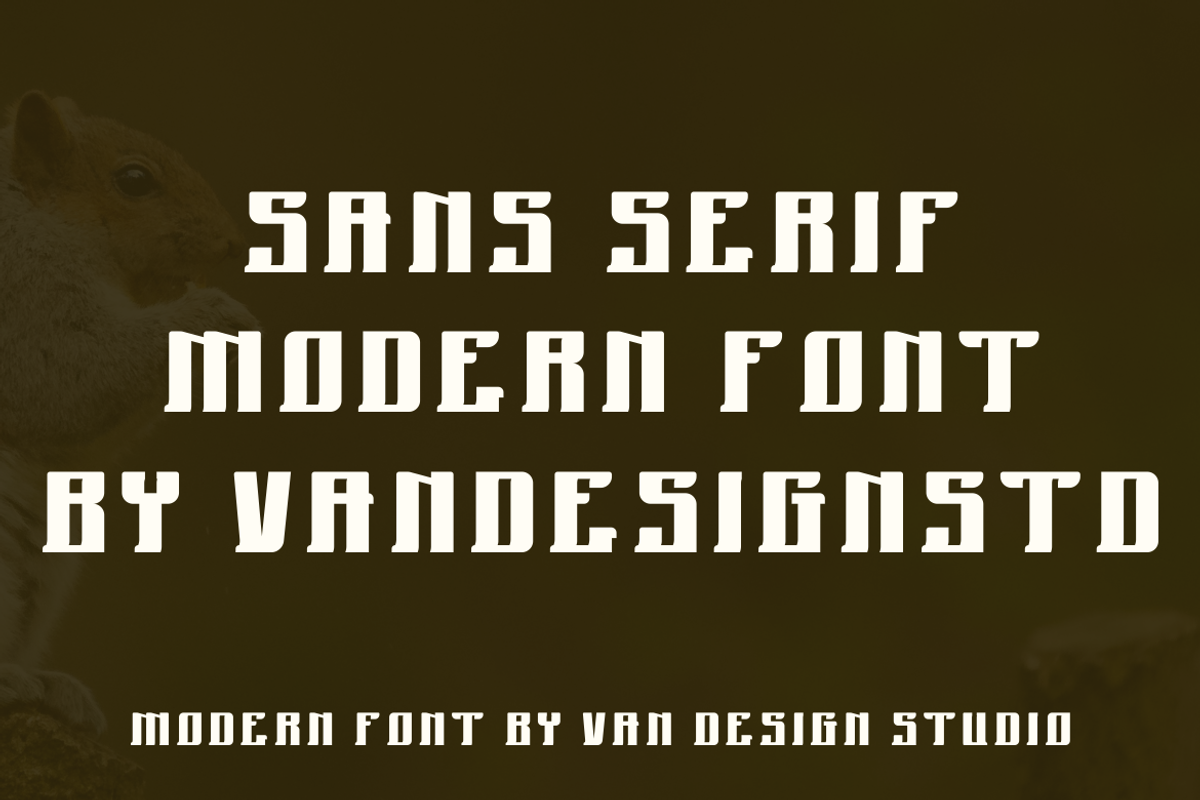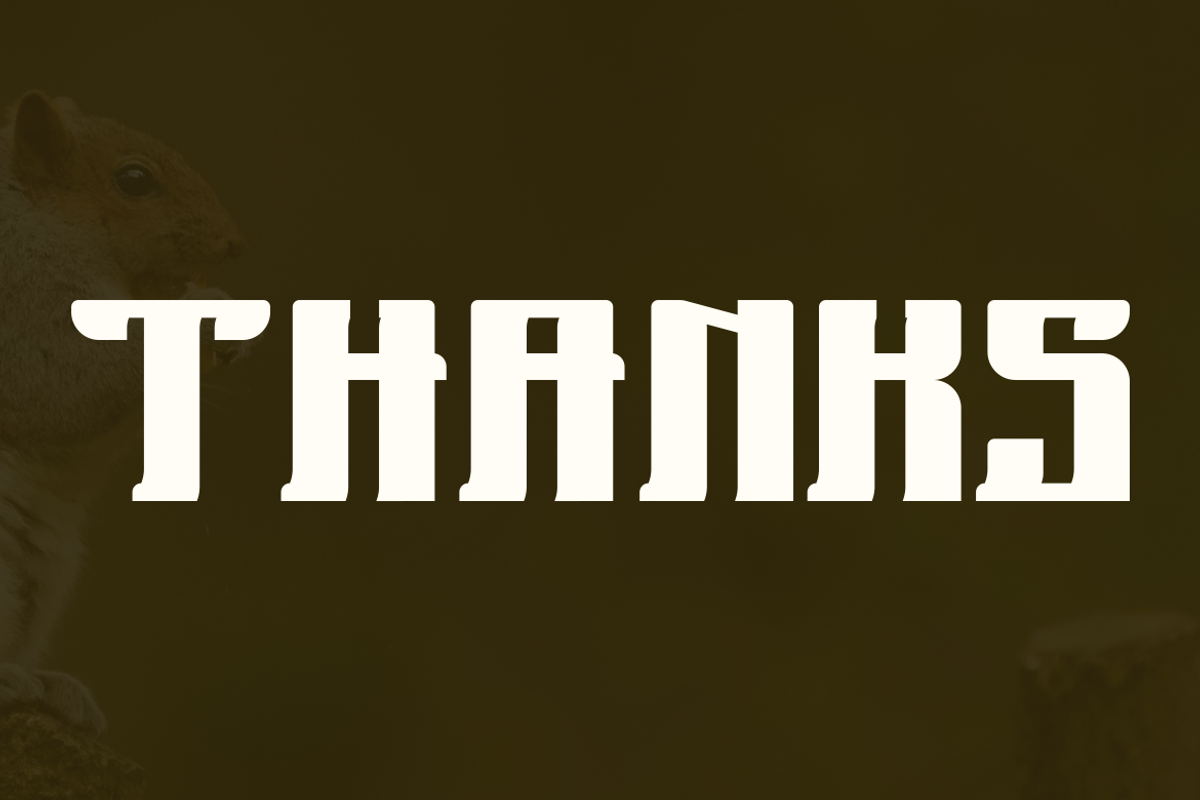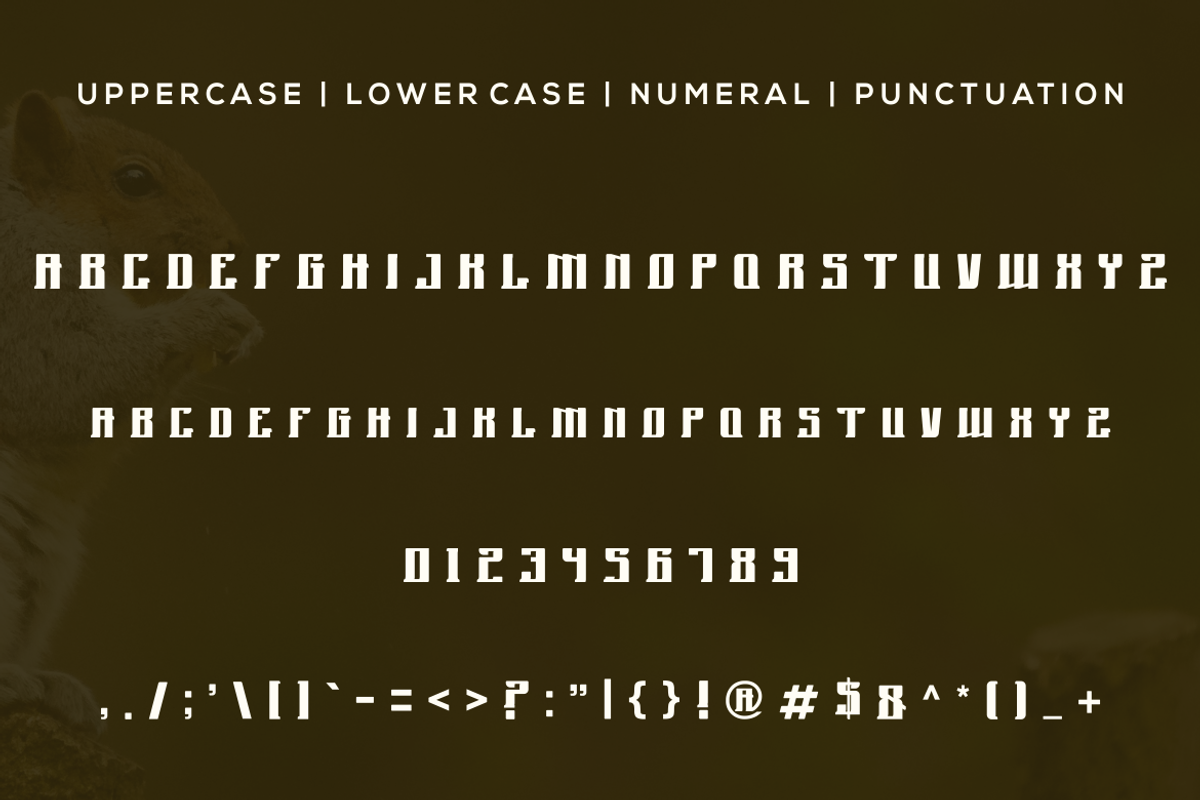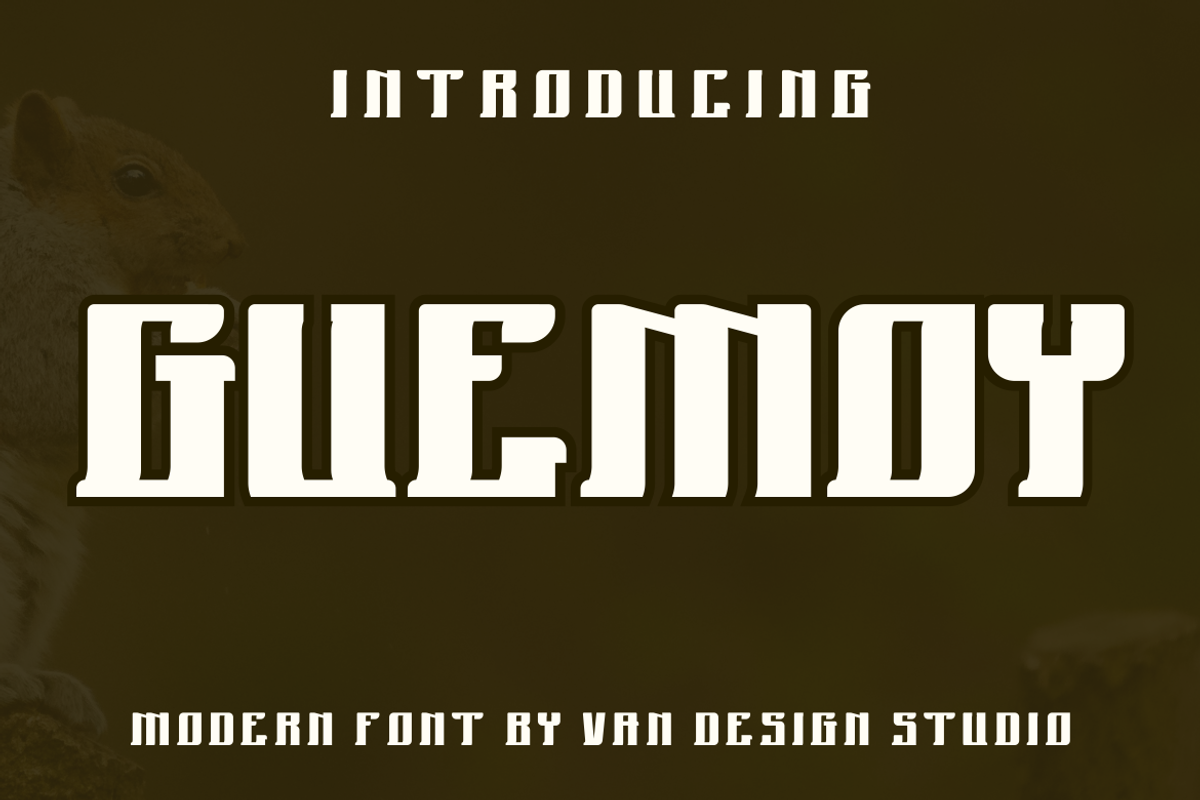
GUEMOY
Our font is a powerful and elegant display typeface, created to make the most of horizontal space. Built from hand drawn sketches. Our fonts make a strong impression in print, headlines, videos, and social media – whether paired with a contrasting typeface or on their own.
a typeface featuring a unique alternative style. Typefaces include multilingual uppercase letters, numbers, and punctuation. I've found a great font for logos, titles and I love using it very widely spaced.